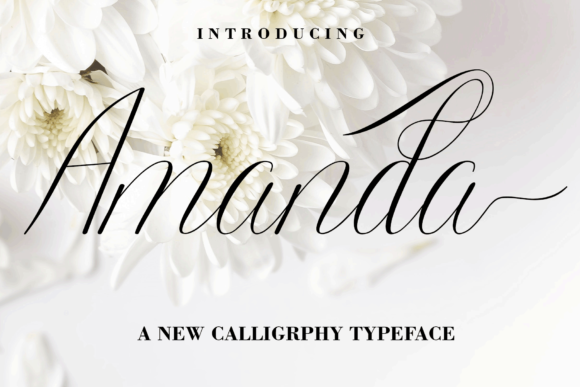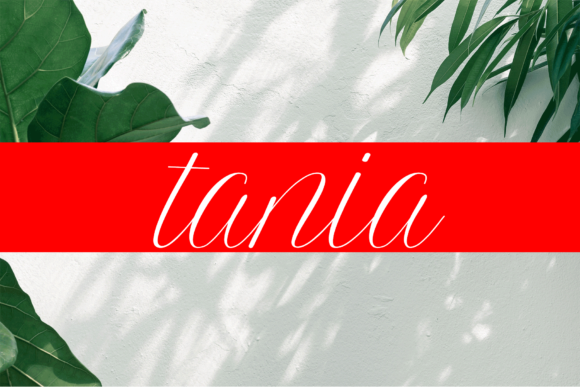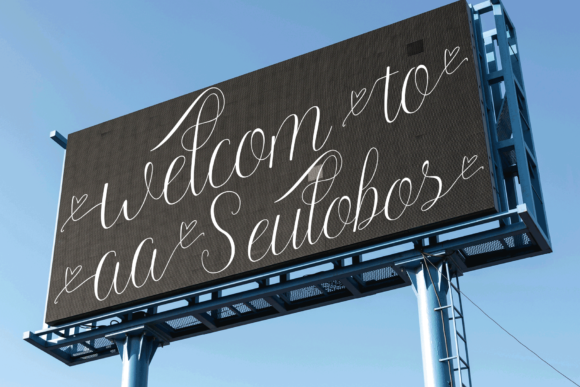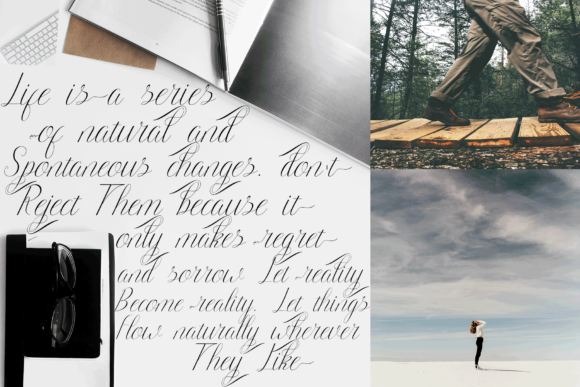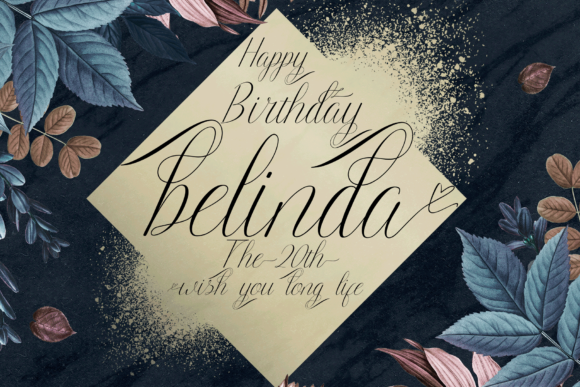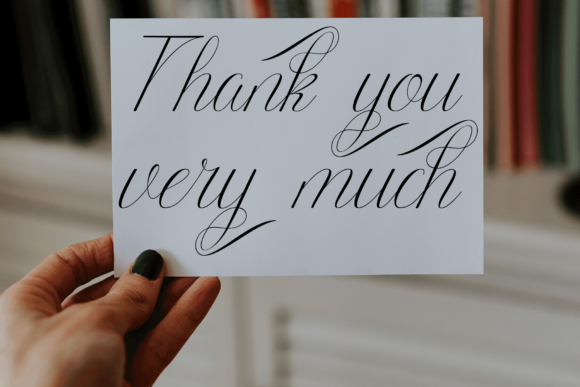
Amanda Font
About Amanda Font
Amanda is an exquisite handwritten font that radiates elegance and grace. Its delicate and flowing style lends a touch of sophistication to any design project. With its beautiful and well-balanced characters, Amanda is perfect for a wide range of designs. Here are some creative ideas on how to use Amanda to bring your projects to life:
1. Wedding Invitations: Design elegant and romantic wedding invitations with Amanda, setting the tone for a memorable and special occasion.
2. Thank You Cards: Create heartfelt and beautiful thank you cards with Amanda, expressing appreciation with a touch of class.
3. Quotes and Typography Art: Craft inspiring typography art and quote posters with Amanda, adding a sense of grace and beauty to your motivational messages.
4. Greeting Cards: Use Amanda to design charming and sophisticated greeting cards for various occasions, from birthdays to holidays.
5. Logos and Branding: Incorporate Amanda into your logo and branding elements to create a refined and timeless identity for your business.
6. Product Packaging: Apply Amanda to product packaging for a touch of elegance and sophistication that captivates customers.
7. Social Media Graphics: Use Amanda to create stylish and eye-catching social media graphics that enhance your brand’s image.
8. Book Covers: Design captivating book covers with Amanda, giving your literary works an alluring and polished look.
9. Personal Stationery: Customize your personal stationery with Amanda, adding a sense of refinement to your handwritten correspondence.
10. Art Prints: Create stunning art prints featuring Amanda’s beautiful characters, perfect for decorating your home or gifting to others.
11. Event Invitations: Design invitations for special events and celebrations with Amanda, creating an elegant and sophisticated look for your guests.
12. Blog Graphics: Use Amanda in blog post headers and graphics to elevate your content with a touch of elegance.
13. Craft Projects: Apply Amanda to DIY craft projects, such as handmade cards, gift tags, and labels, for an exquisite and personalized touch.
14. Restaurant Menus: Use Amanda to design upscale and attractive menus for fine dining establishments, exuding sophistication and charm.
15. Nursery Decor: Create delicate nursery decor with Amanda’s flowing characters, perfect for adding a touch of elegance to baby rooms.
With its varying baseline, smooth lines, gorgeous glyphs, and stunning alternates, Amanda offers versatility and sophistication, making it a perfect choice for various design projects. Its timeless elegance and flowing style give a sense of refinement and beauty to any design it graces. Embrace Amanda’s delicate charm, and you’ll notice how it brings your creative ideas to life with grace and elegance!